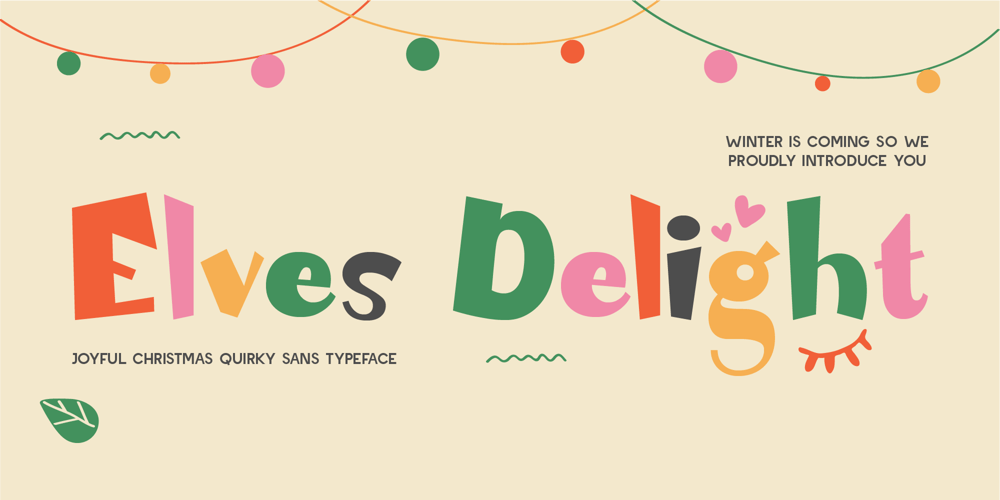
Elves Delight Font Family was designed by Dede Kurniawan and published by Creatifont Studio. Elves Delight contains 1 styles and family package options. Elves Delight is a whimsical decorative display font bursting with playful charm and holiday cheer. Perfectly embodying the spirit of Christmas, this font radiates joy through its quirky shapes and lively forms. Each letter feels like a unique ornament, designed to add a fun, imaginative touch to your festive projects. The font’s unconventional angles and rounded curves create a sense of spontaneity, while its hand-crafted, imperfect edges bring a heartwarming, human touch to any design. Whether you’re creating holiday cards, cheerful packaging, or festive social media graphics, Elves Delight is sure to sprinkle your designs with merriment and delight.A SUMMARY OF WHAT’S INCLUDED: Standard Character A-Z, a-z, 0-9, Punctuation & symbols Regular Style Multilingual Support Works on PC & Mac Simple installation Accessible in Adobe Creative Suite (Ai, Ps, Id, etc.) even work on Microsoft Word. PUA Encoded Characters – Fully accessible without additional design software. 🌟If you come across any issues or notice anything we might have overlooked while using this product, please feel free to reach out to us. We greatly value your feedback as it helps us enhance and refine our products. Thank you!